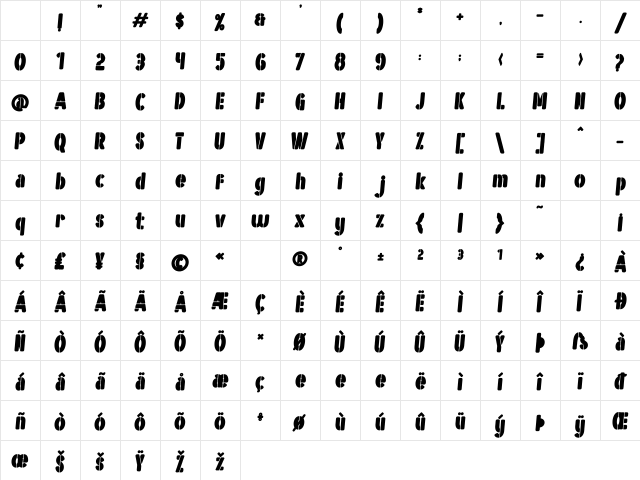
Hold Deck is a composed and adaptable typeface that performs quietly and consistently across a wide range of design contexts. The slanted form adds forward momentum and visual energy.
Pro Tip: Use Hold Deck for emphasis, pull quotes, and subheadings where its slanted energy can add rhythm to the layout.